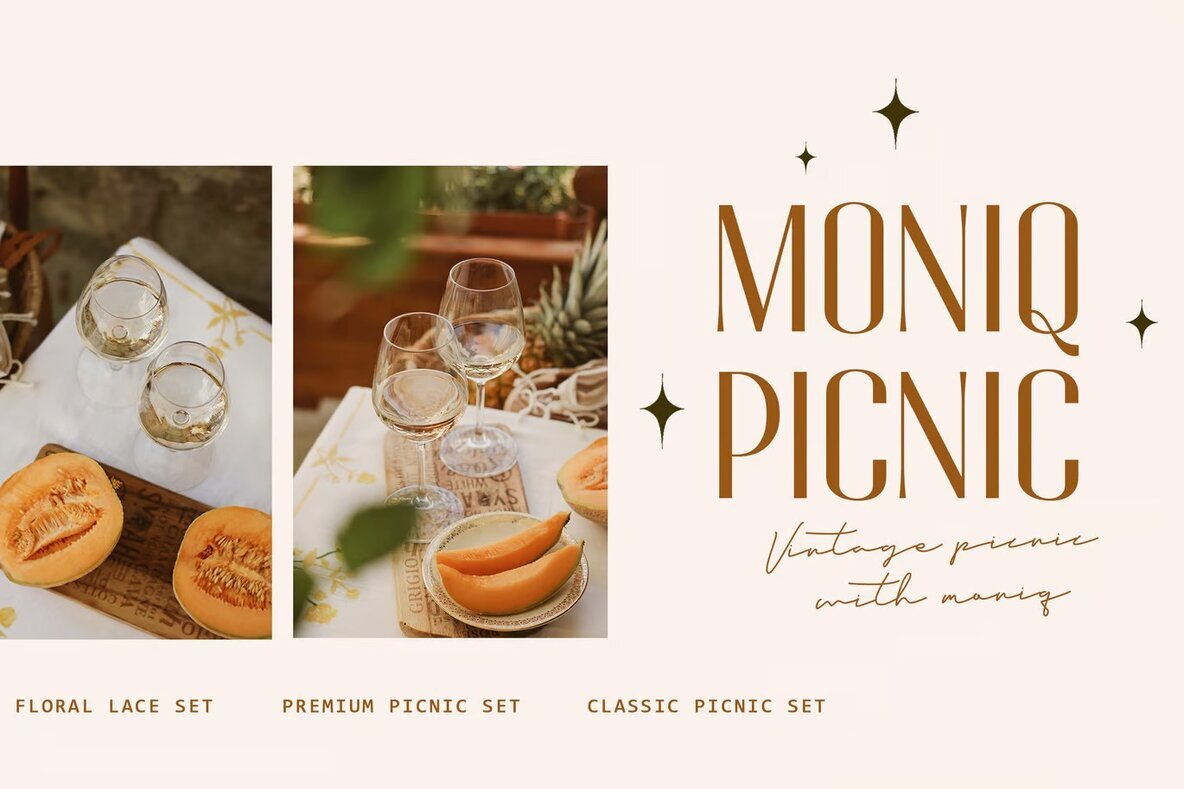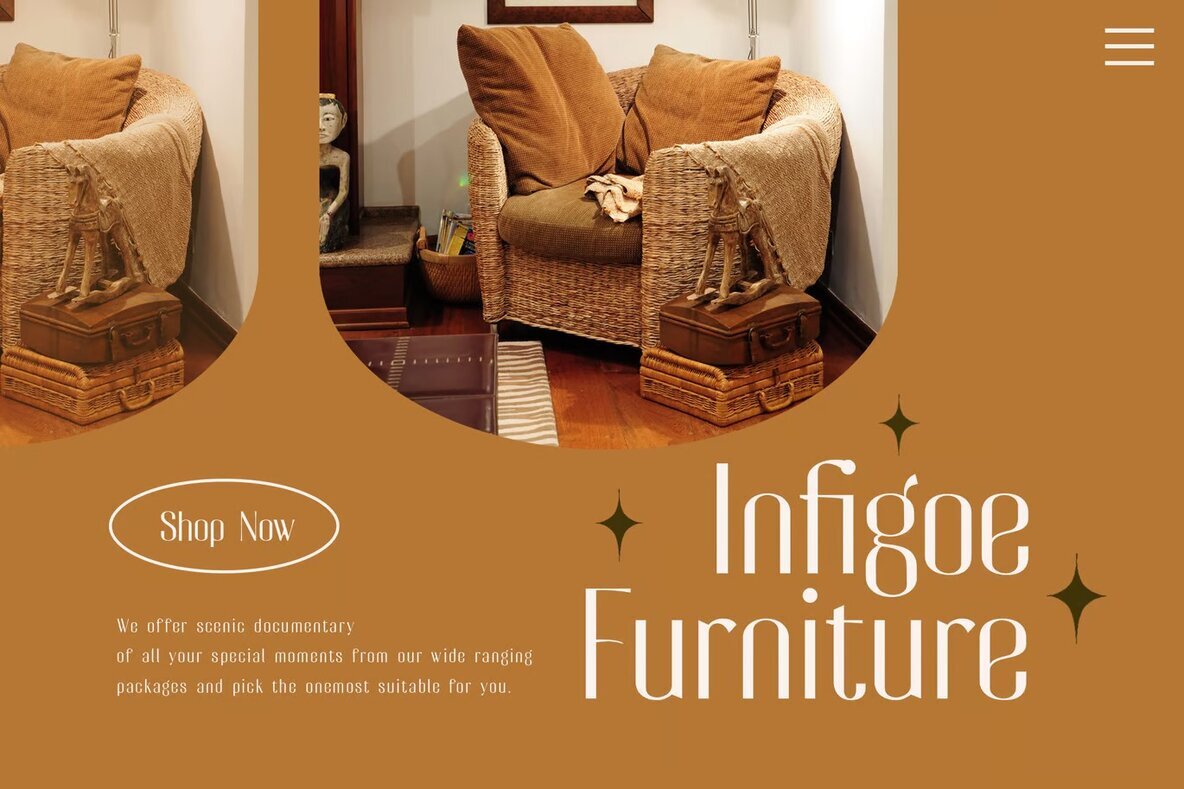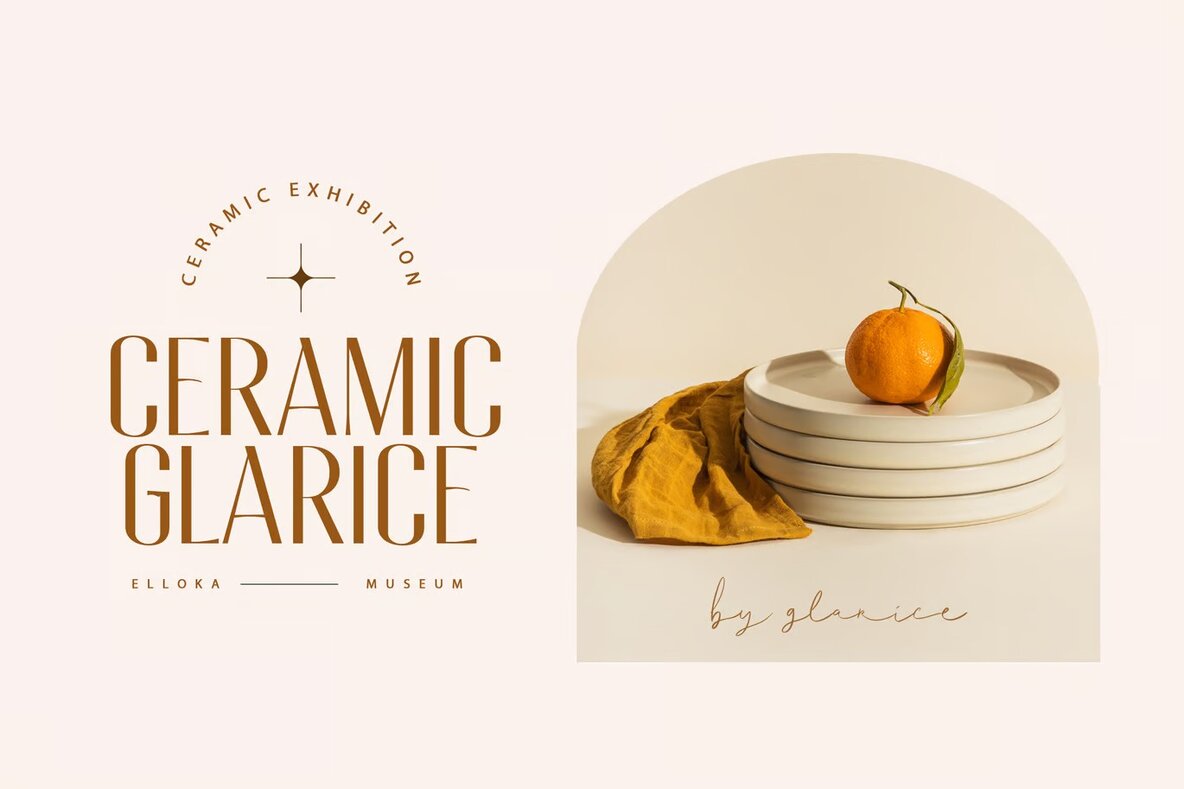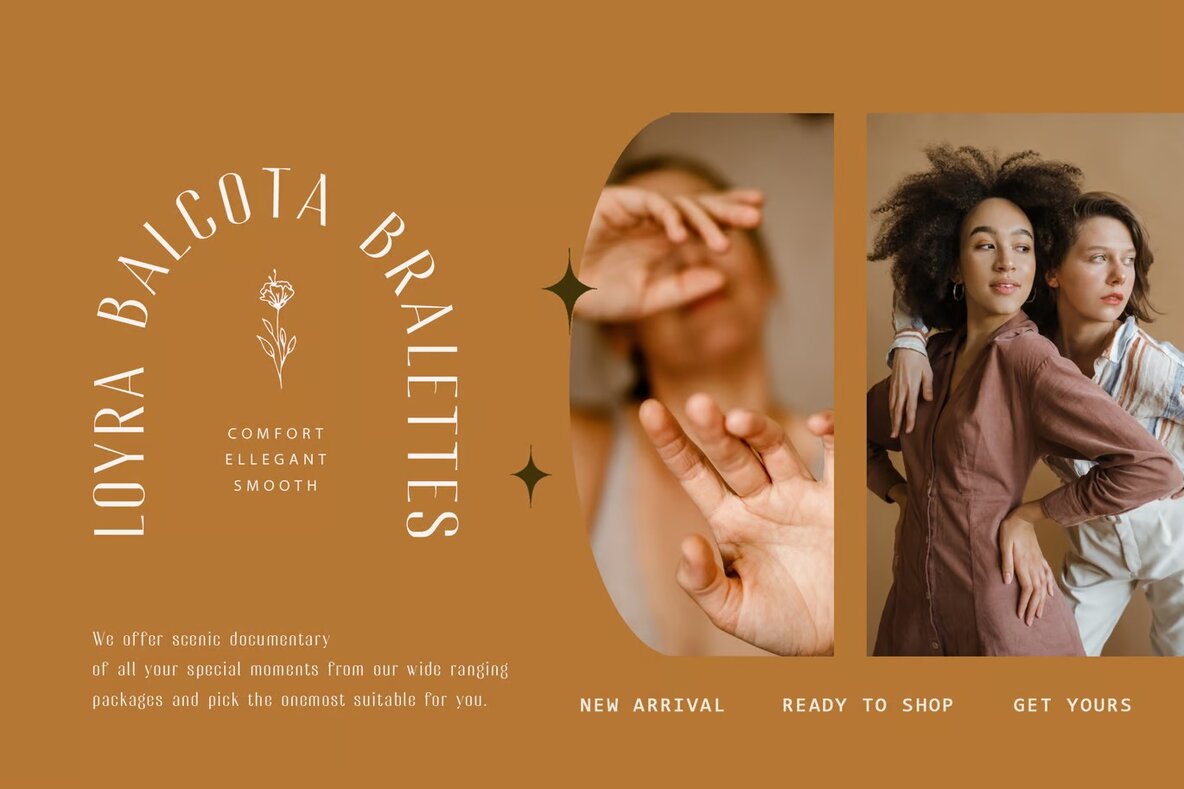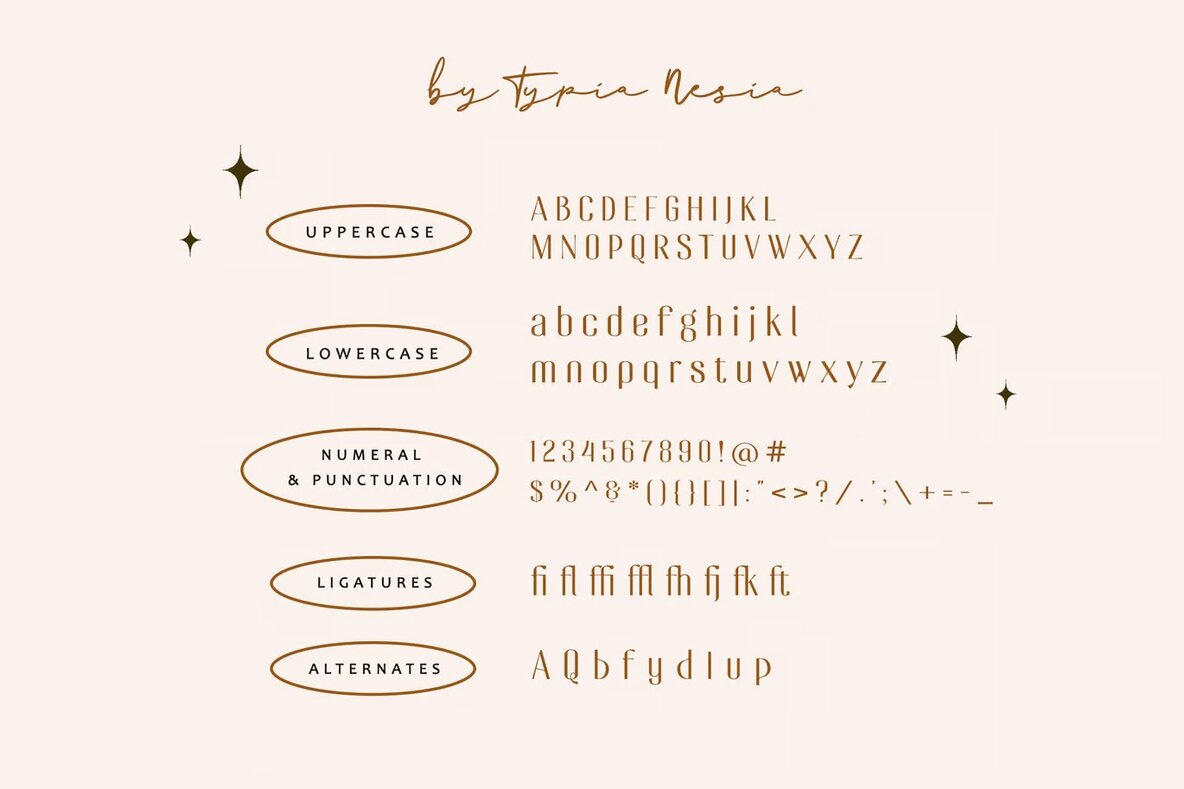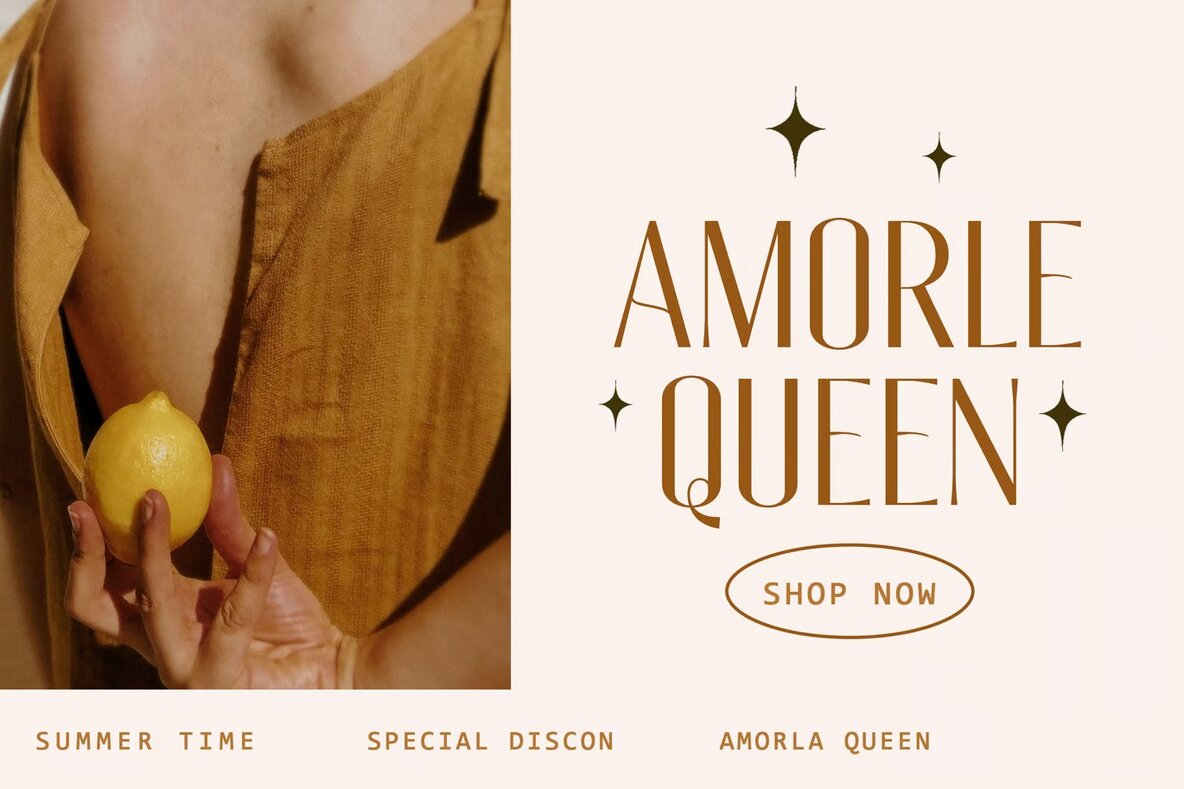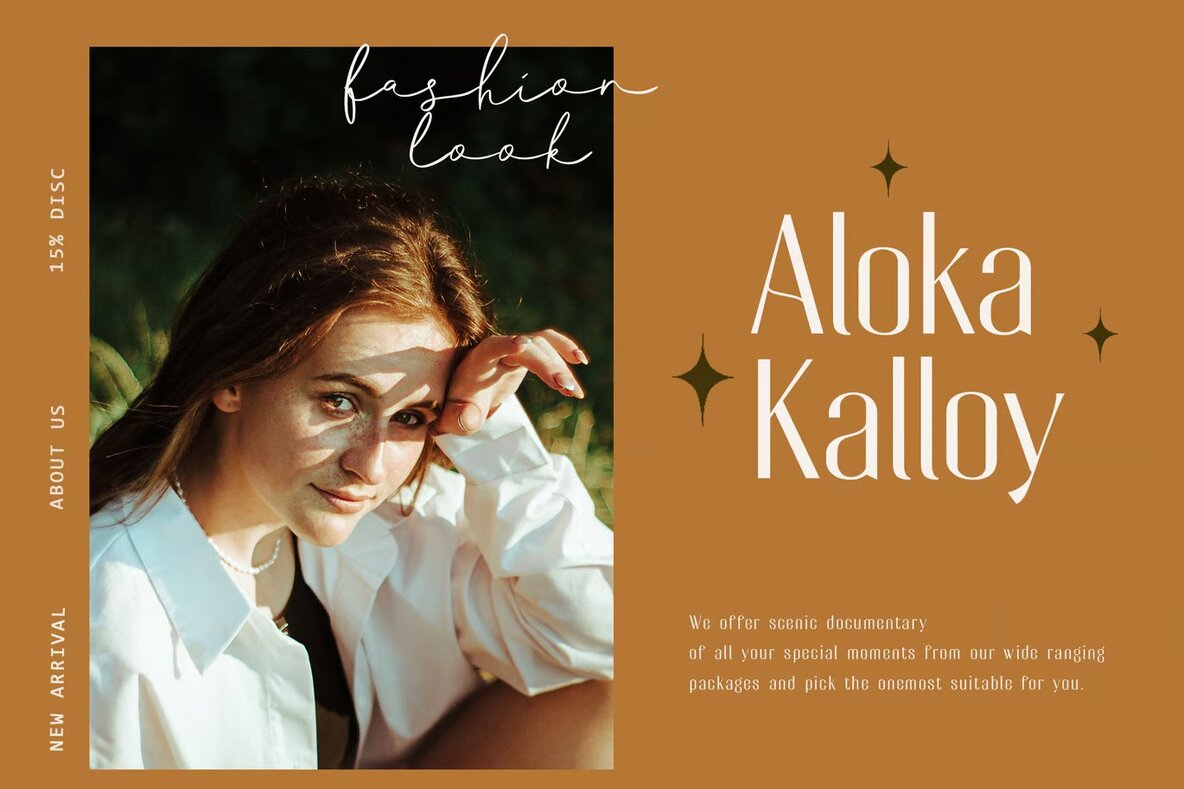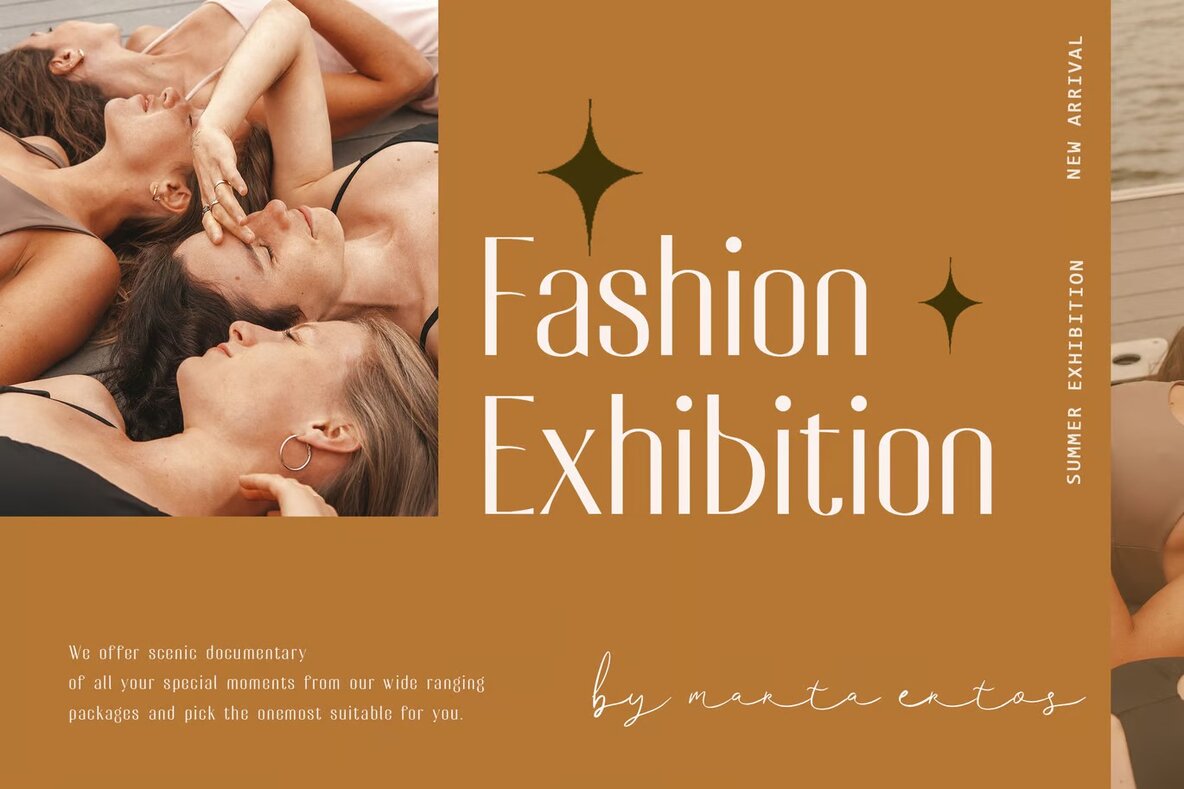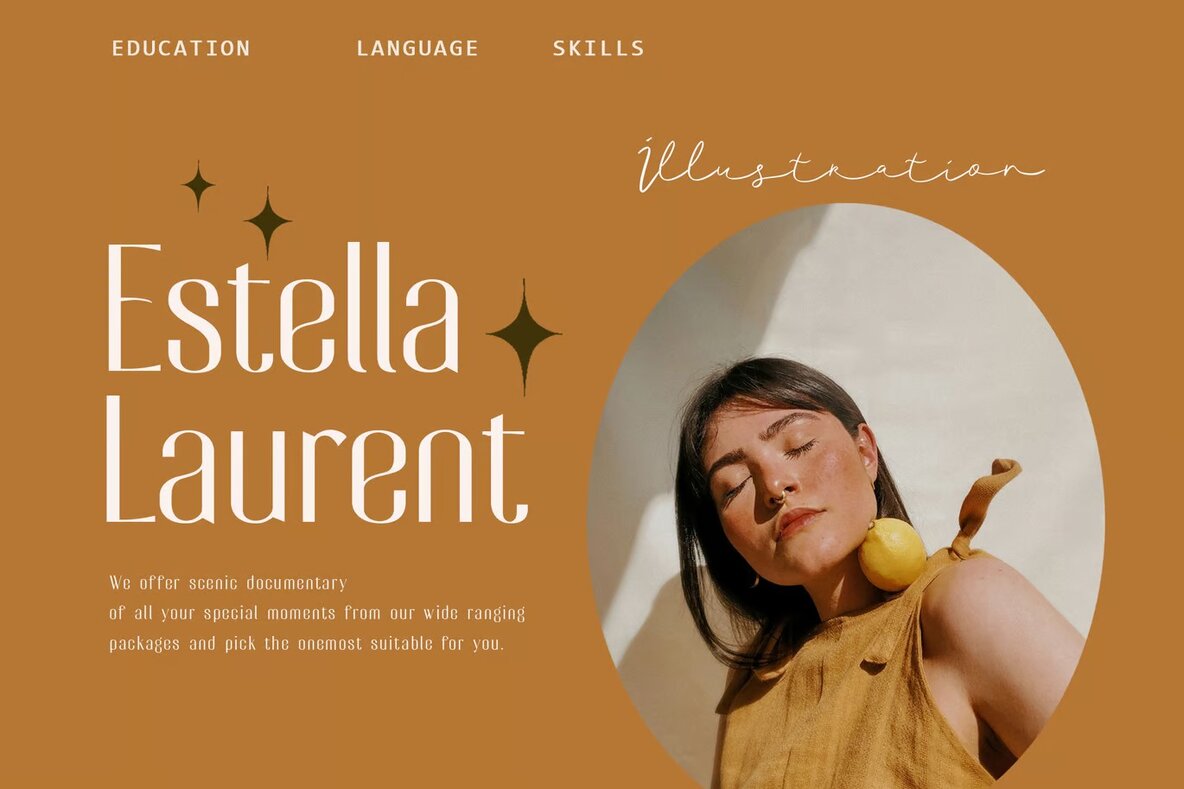
Belly and Park Font
Belly and Park Regular
Belly and Park offers a beautifully condensed vintage classic sans serif style, ideal for a variety of design projects. The inclusion of ligatures allows for creative typographic combinations, making it an excellent choice for luxury logos, branding, and editorial designs. Its elegant yet timeless appeal is suited to woman magazines, cosmetic brands, and fashion promotions, lending a sophisticated touch to any project.
This font is also perfect for branding art galleries, museums, and historical architecture projects. It seamlessly complements boutique branding, stationery designs, and modern advertising needs. Additionally, Belly and Park shines in special event invitations, art quotes, home decor, and book or cover titles, providing versatility and charm that enhance any creative endeavor.